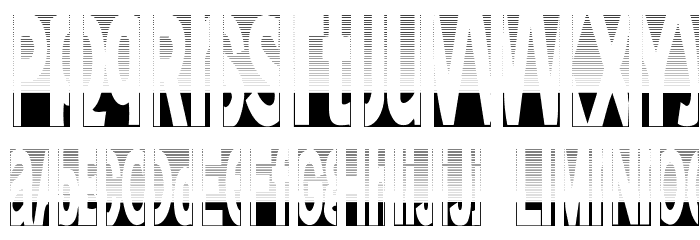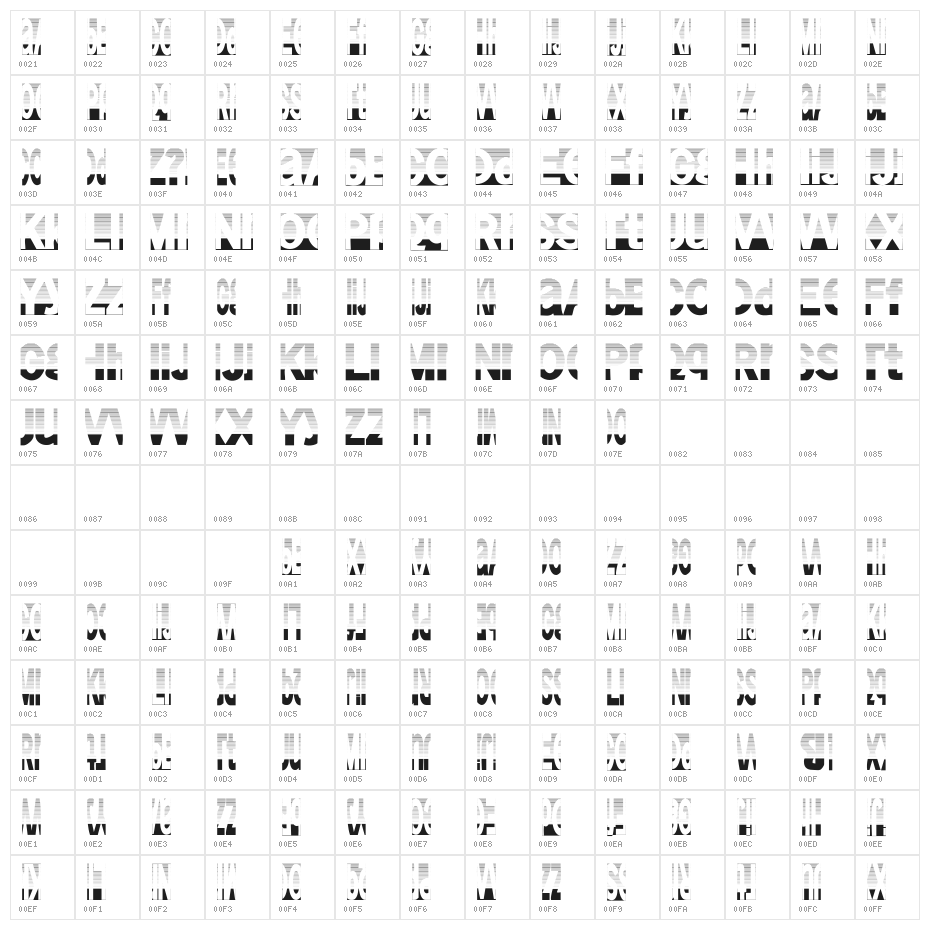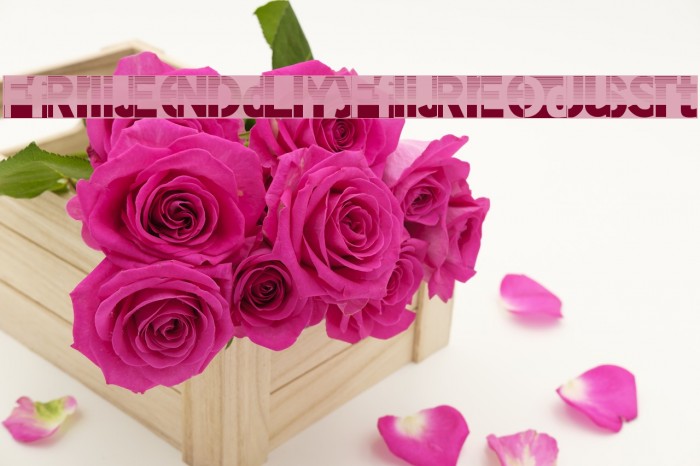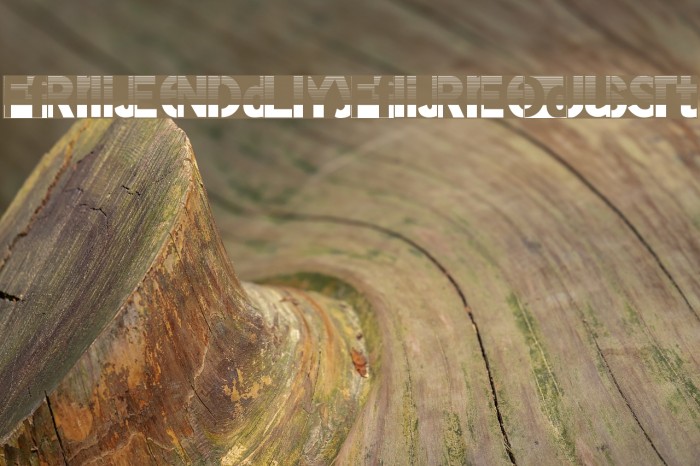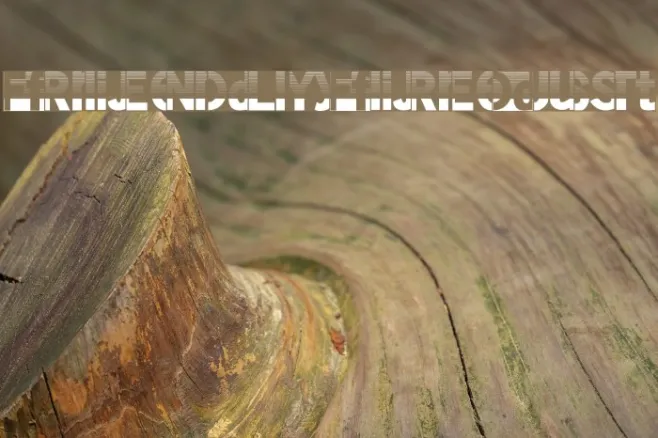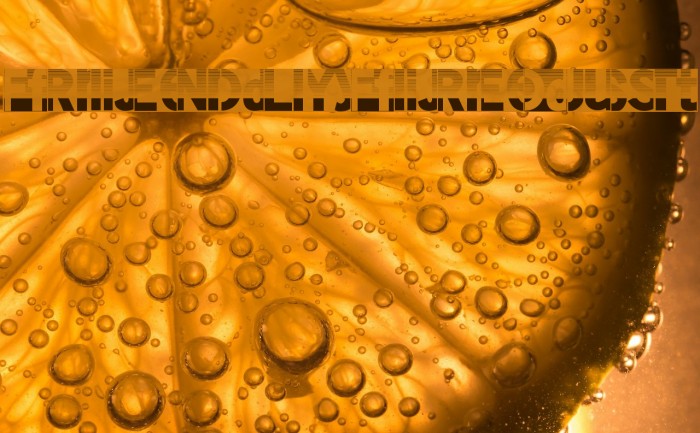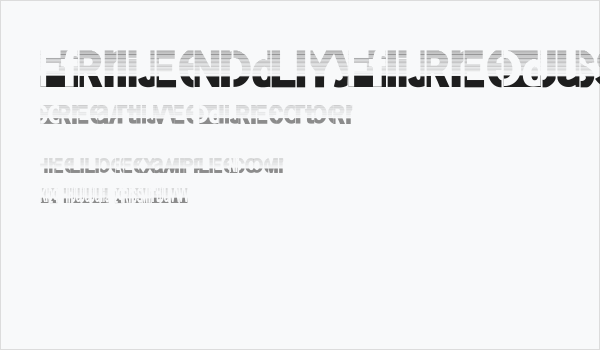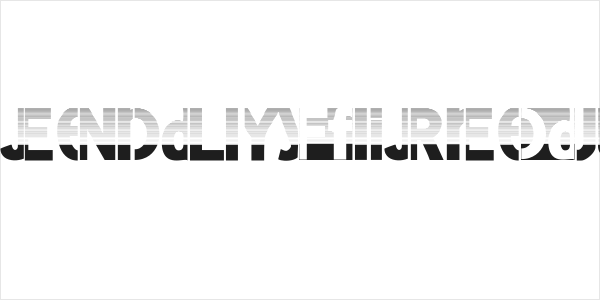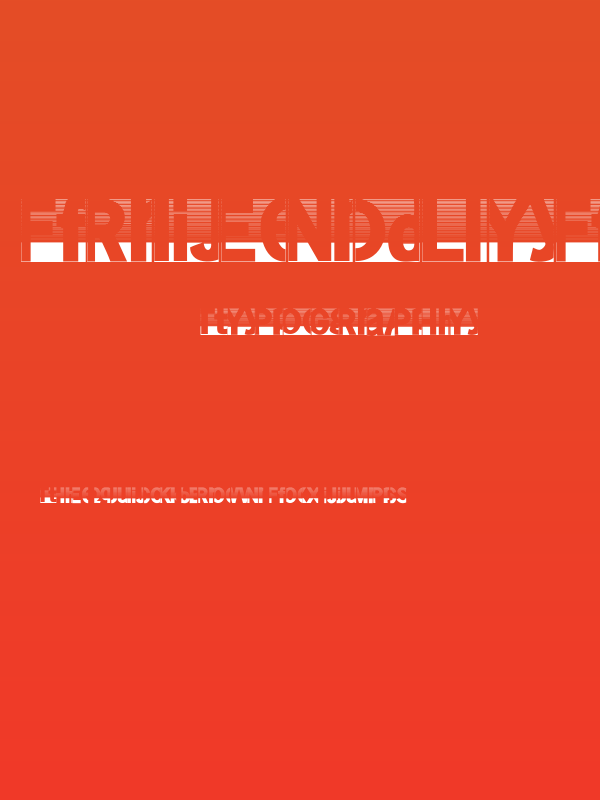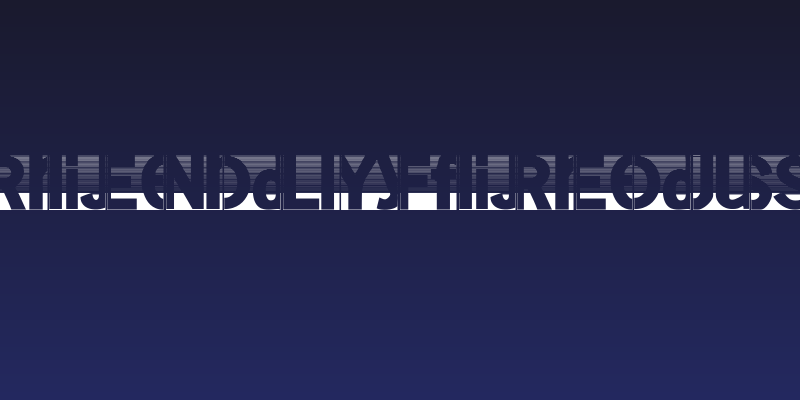
FriendlyFireDust Font
FriendlyFireDust Description
This font features a bold and striking design with a modern, futuristic aesthetic. The characters are constructed with a unique stencil-like appearance, where parts of the letters are intentionally omitted to create an intriguing visual effect. The font maintains a consistent weight throughout, offering a bold presence that is both eye-catching and impactful. The uppercase and lowercase letters share a similar style, ensuring uniformity across different text applications. The numbers and special characters are designed to match the overall theme, providing a cohesive look. The font's geometric shapes and clean lines make it suitable for various design projects that require a contemporary and innovative touch.